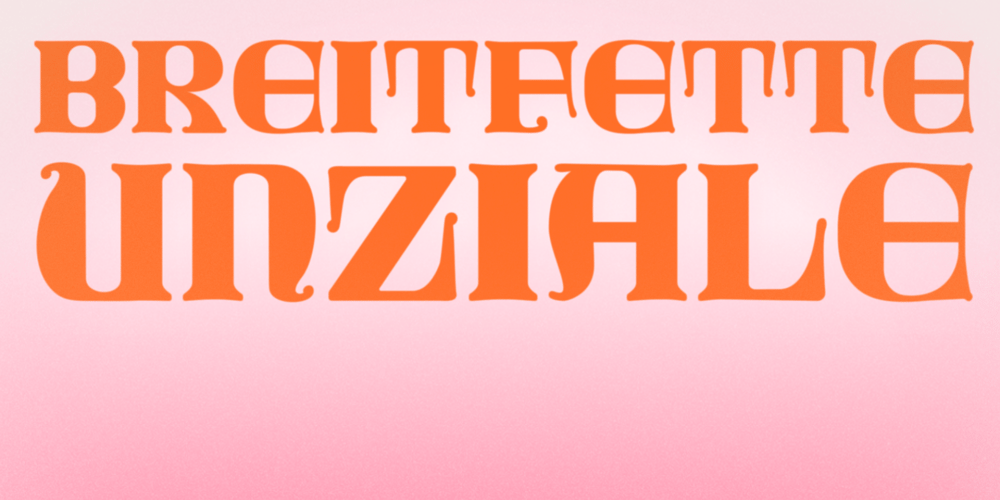
BM Breitfette Unziale Font Family was designed by Murathan Biliktu and published by Biliktu Foundry. BM Breitfette Unziale contains 1 styles and family package options. I was immediately fascinated with the font, Breitfette Unziale, used for Erol Büyükburç’s Hop Dedik album cover when I discovered this album.I designed a completely brand new typeface that is inspired by it called Erol Unziale but I also wanted to digitize and revive this typeface since I couldn’t find a digital version of it anywhere online.I took some liberties with the original font and customized it to my liking.Here is my interpretation of Walter Haettenschweiler’s font through digitization.